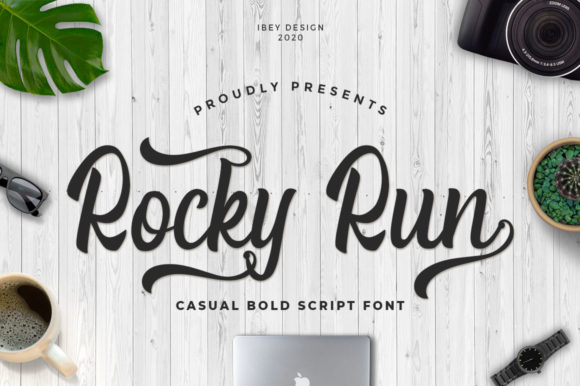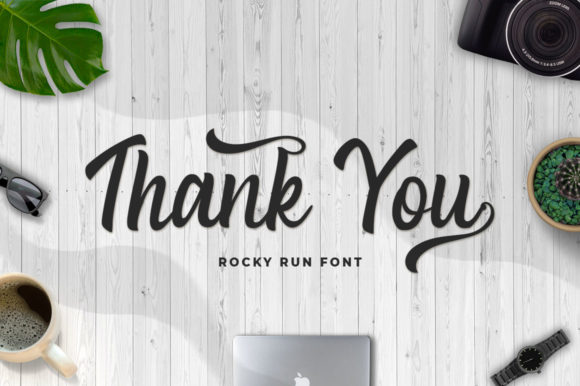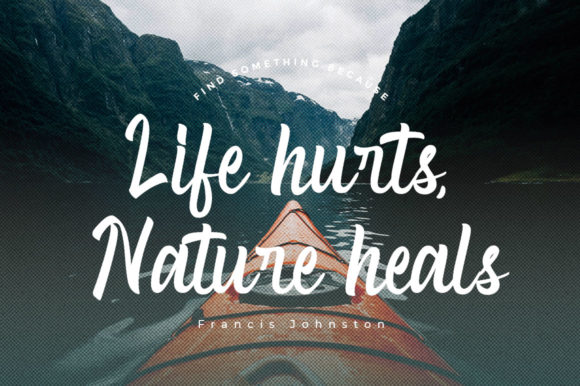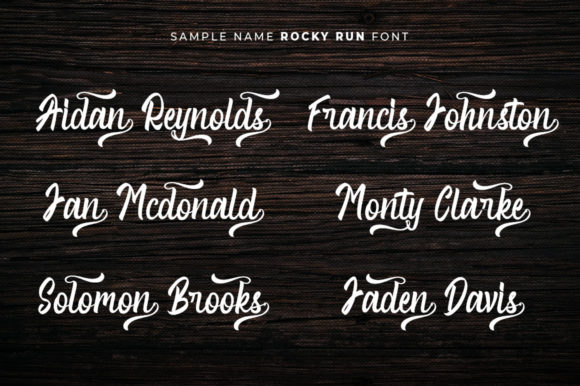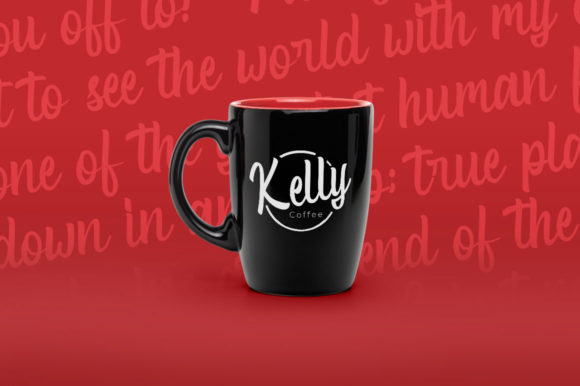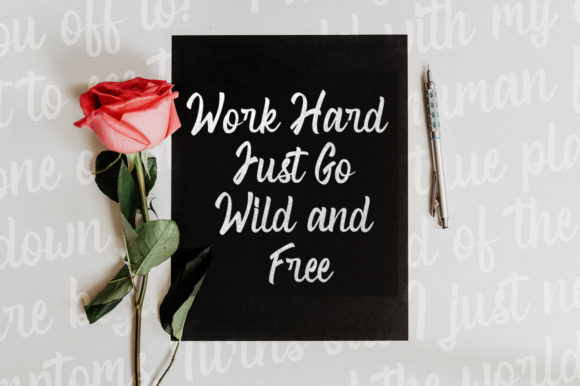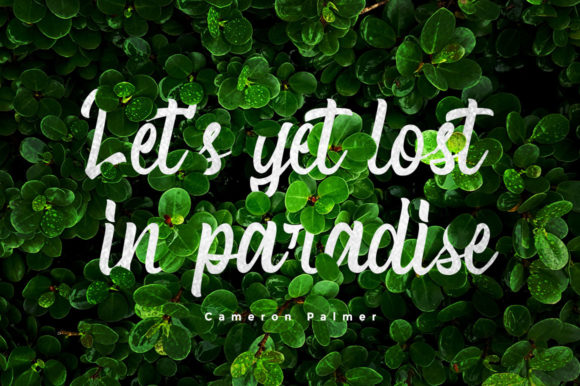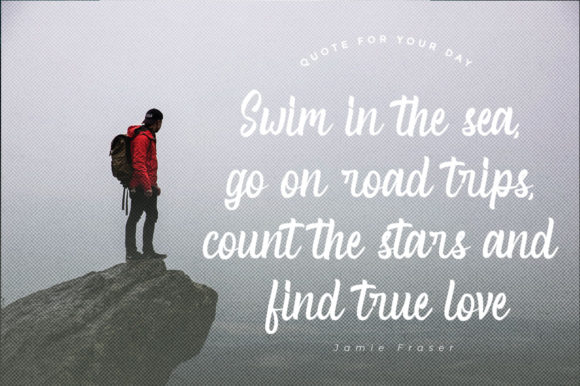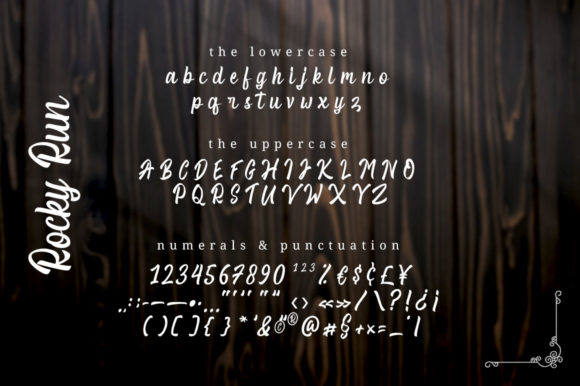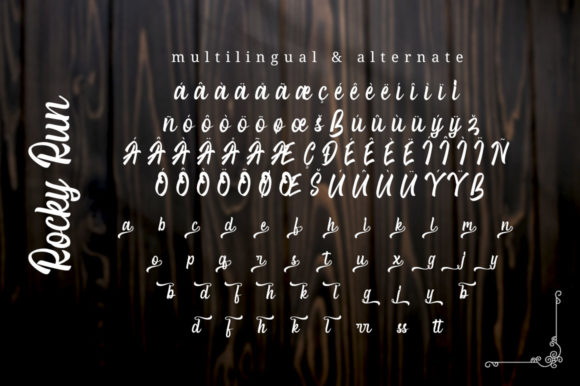
Rocky Run sounds like a sophisticated and versatile handwritten font that can elevate a wide range of design projects with its elegance and flowing style. Its PUA encoding allows for easy access to a variety of glyphs and swashes, providing flexibility and creativity in your design process. Let’s explore some of the ways you can utilize Rocky Run to create stunning and captivating designs:
1. Wedding Invitations: Use Rocky Run to design elegant and romantic wedding invitations, setting the tone for a memorable and special day.
2. Thank You Cards: Create graceful and heartfelt thank you cards with the font, expressing gratitude in a sophisticated manner.
3. Quotes and Typography: Apply Rocky Run to craft beautiful typographic quotes that exude a sense of elegance and wisdom.
4. Logos and Branding: Utilize the font in logos and branding materials to convey a refined and sophisticated image for your business or brand.
5. Business Cards: Design chic and polished business cards that leave a lasting impression on potential clients or partners.
6. Artistic Prints: Create artistic prints featuring inspiring messages or delicate illustrations, perfect for home decor or gifting.
7. Stationery: Customize stationery with Rocky Run to add a touch of grace and sophistication to your handwritten notes.
8. Social Media Graphics: Apply the font to social media graphics, making your posts stand out with its elegant and contemporary feel.
9. Book Covers: Use Rocky Run to design book covers that captivate readers and reflect the essence of the story.
10. Editorial Design: Apply the font to editorial layouts for magazines or brochures, enhancing the overall visual appeal with its elegance.
11. Menu Design: Utilize the font in menu design for upscale restaurants or cafes, creating a refined and inviting dining experience.
12. Event Signage: Use Rocky Run in event signage and banners for a touch of sophistication at weddings, galas, or other special occasions.
13. Luxury Packaging: Apply the font to luxury product packaging, elevating the brand’s image and appeal to discerning customers.
14. Monograms: Design personalized monograms with Rocky Run, adding a touch of elegance to custom gifts and products.
15. Certificate Design: Utilize the font in certificate designs, recognizing achievements and accomplishments with grace and style.
16. Calligraphy and Lettering: Incorporate the font into hand-lettered designs or calligraphy artworks, showcasing its beautiful flowing lines.
17. Website Headings: Apply Rocky Run to website headings or hero sections for a polished and welcoming online presence.
18. Event Invitations: Design elegant event invitations for formal gatherings, charity balls, or galas, setting the tone for a sophisticated affair.
19. Fine Art Prints: Use Rocky Run to create fine art prints with delicate illustrations or poetic verses, perfect for art collectors.
20. Beauty and Fashion: Apply the font in beauty or fashion-related designs, conveying an air of elegance and luxury.
In conclusion, Rocky Run is an elegant and flowing handwritten font that possesses a timeless charm while feeling contemporary and fresh. Its versatility makes it suitable for a wide range of projects, from wedding invitations and thank you cards to logos, branding, and social media graphics. Embrace the sophistication of Rocky Run to elevate your designs, and let its smooth lines and stunning alternates add a touch of elegance to your creative endeavors. Whether you’re crafting for personal or professional purposes, this font will undoubtedly bring your projects to the highest levels, leaving a lasting impression on your audience with its classy calligraphic influences.